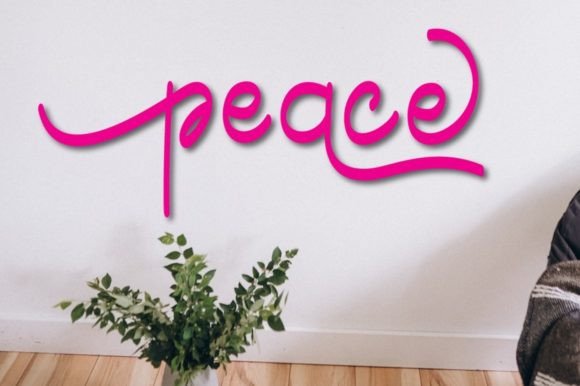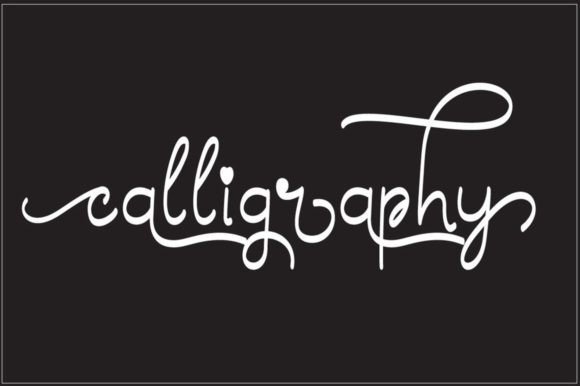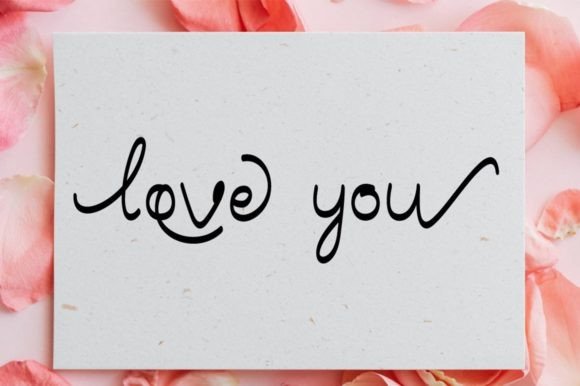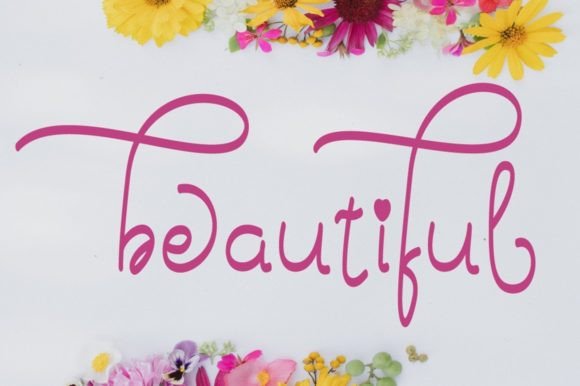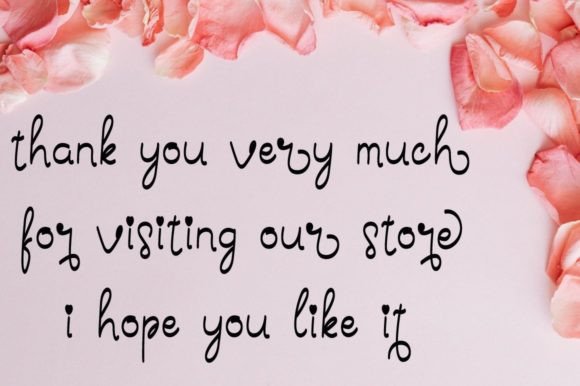
Introduction to Slowada Font
As a designer, have you ever found yourself pouring over a blank canvas, searching for the perfect font to bring your creative project to life? Maybe it’s a romantic invitation, a birthday card, or a promotional poster – whatever the case, the right font can make all the difference. That’s where the enchanting Slowada Font comes in.
With its delicate swash calligraphy and smooth curves, Slowada Font is the perfect choice for designers who crave a high-quality, hand-brushed lettering vibe. Its dancing baseline and adorable heart-shaped dots for the “i” add a touch of whimsy and romance to any design. Plus, with its PUA-encoded glyphs and ligatures, you can unlock a world of creative possibilities with ease. Whether you’re working on a free download or a paid design resource, Slowada Font is an invaluable addition to any designer’s toolkit.
Key Features of Slowada Font
- High-quality design resource with a unique, creative style perfect for various projects.
- Supports various languages and characters for a wide range of creative projects.
- Available in a single font size with high resolution, making it suitable for both digital and print designs.
- Designed to be highly versatile, ideal for use in creative projects such as branding, graphics, and more.
Honest Review: Slowada Font
I recently had the opportunity to work with the Slowada Font on a creative project and I must say it’s been a pleasant experience. The font is designed to be versatile and can be used for various design applications.
- High quality design that’s perfect for digital projects
- Wide range of font styles to choose from
The Slowada Font is a great addition to any design resource library. It’s perfect for designers who want to add a touch of elegance to their projects without breaking the bank.
- Limited font sizes available, which may not be suitable for larger or smaller projects
- Not ideal for print design, as the font may not scale well
Overall, the Slowada Font is a solid choice for designers who need a high-quality font for their digital projects. With its transparent background options and wide range of font styles, it’s a great resource to have in your library.
The Slowada Font is a high-quality design resource perfect for creative projects that require a unique touch. With its transparent background and elegant style, this font is ideal for various applications.
Tips for Getting the Most Out of Slowada Font
To maximize the potential of the Slowada Font, use it in combination with other design elements, such as graphics and images, to create a visually appealing design. Experiment with different font sizes, colors, and styles to achieve the desired effect.
The Slowada Font is suitable for various design projects, including:
- Graphic design and digital art